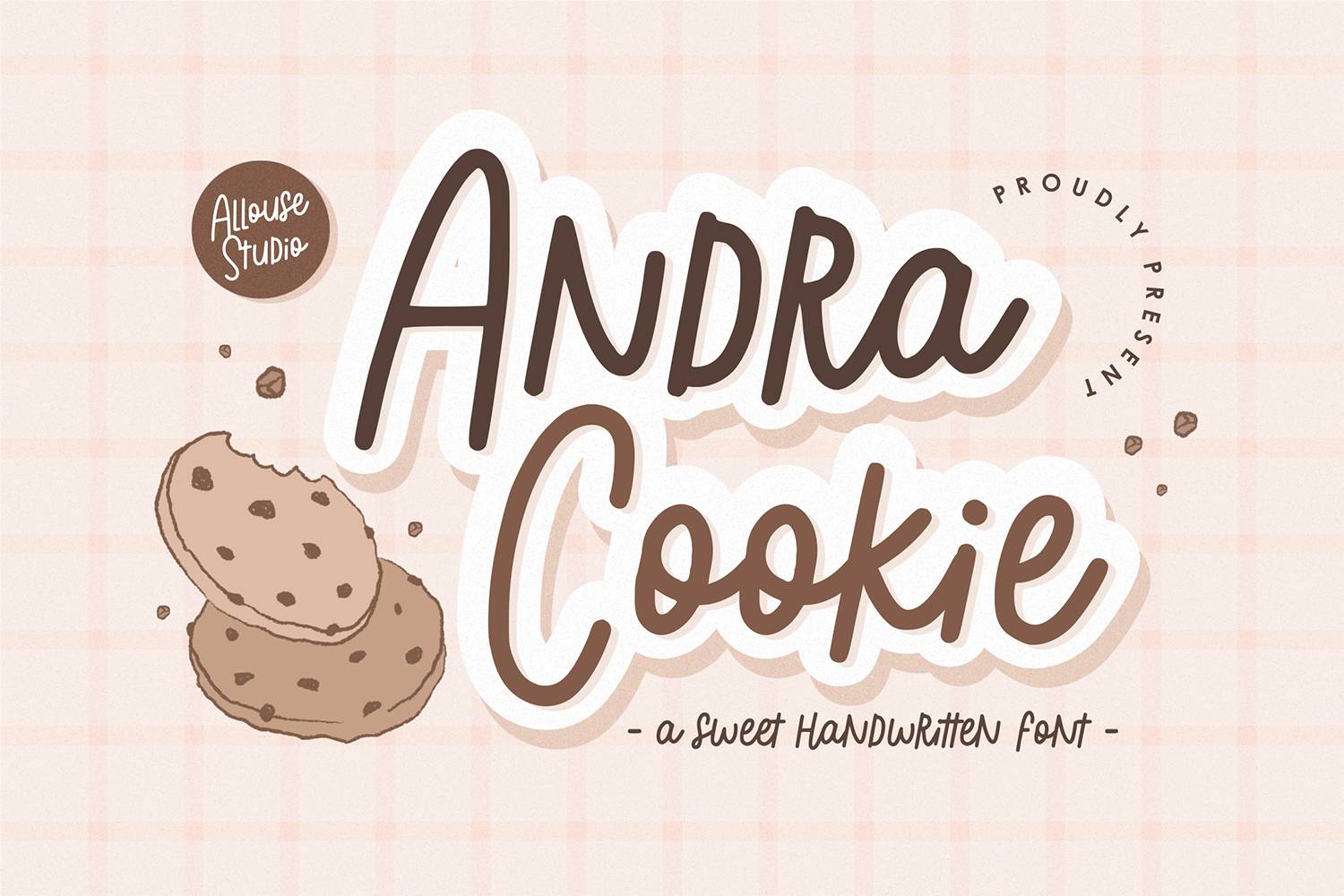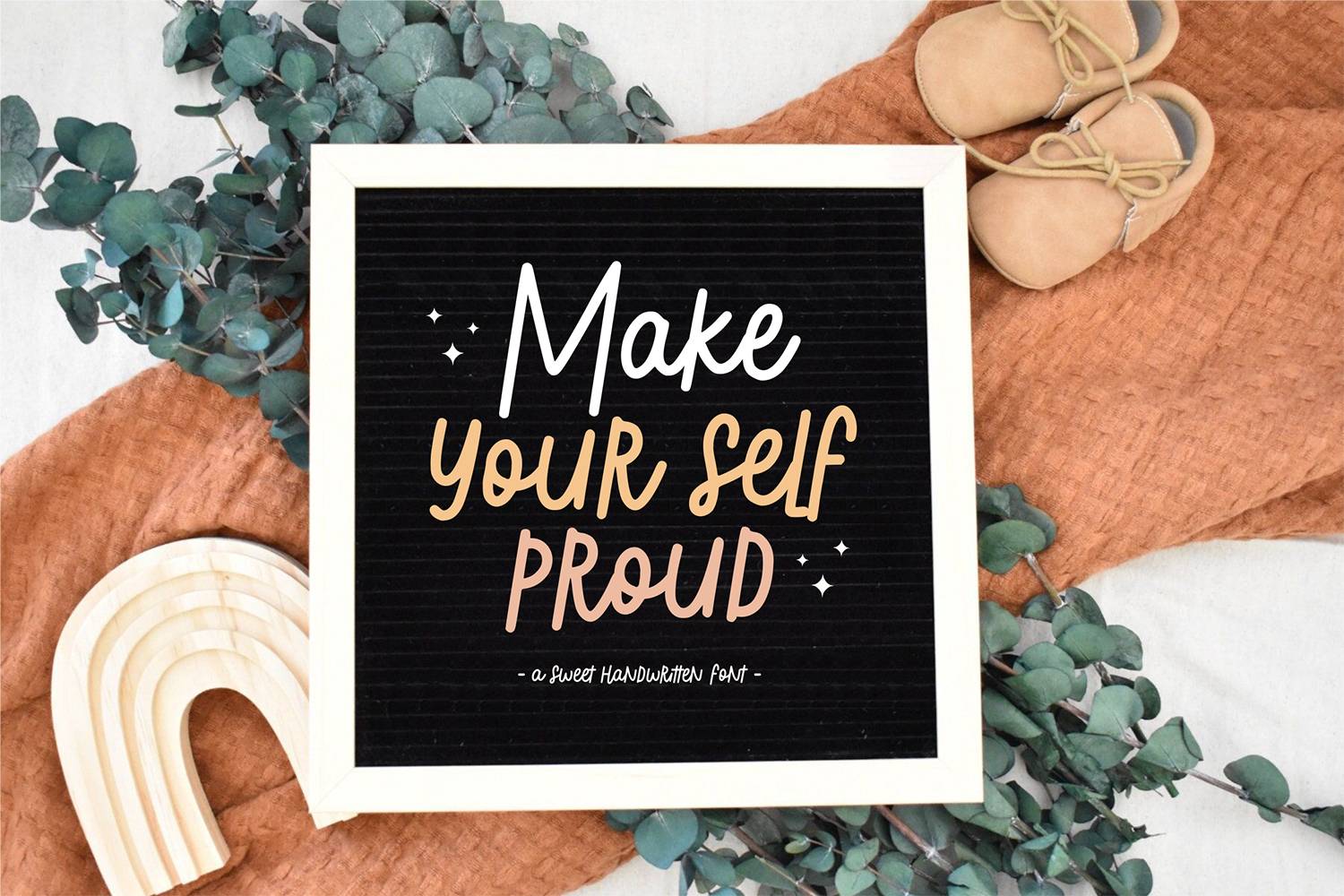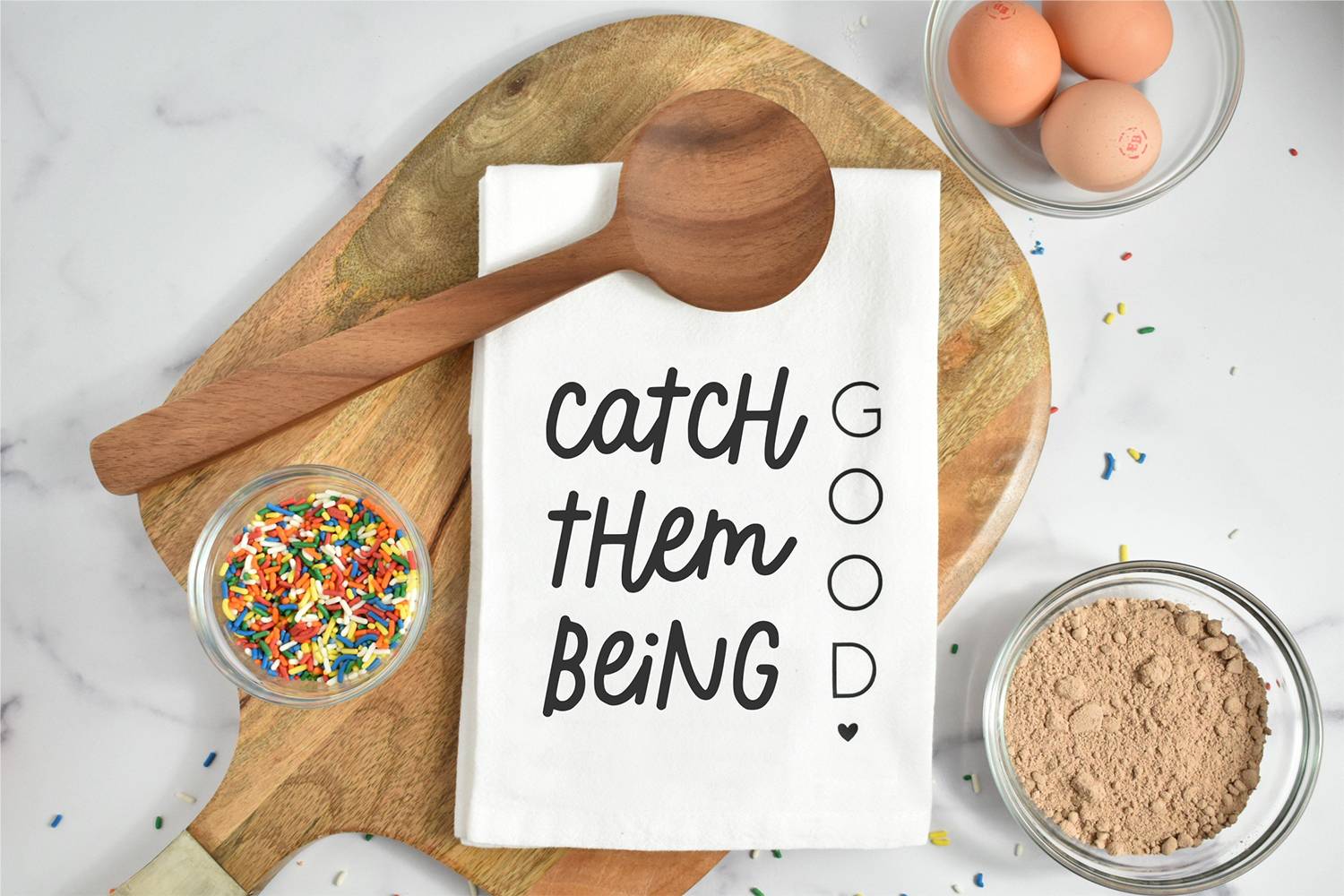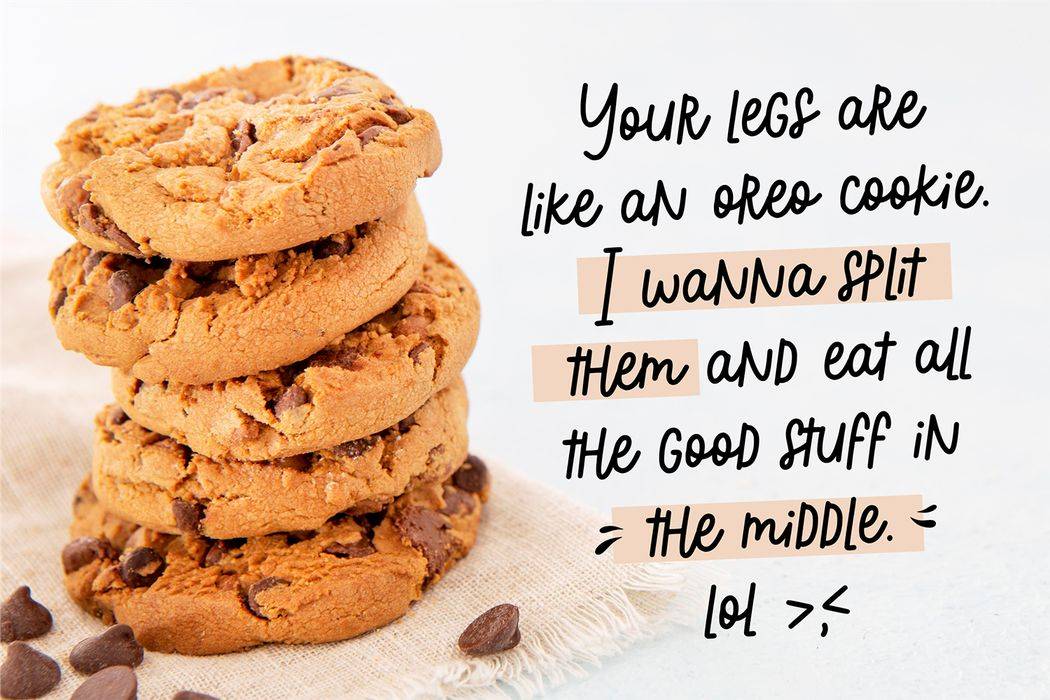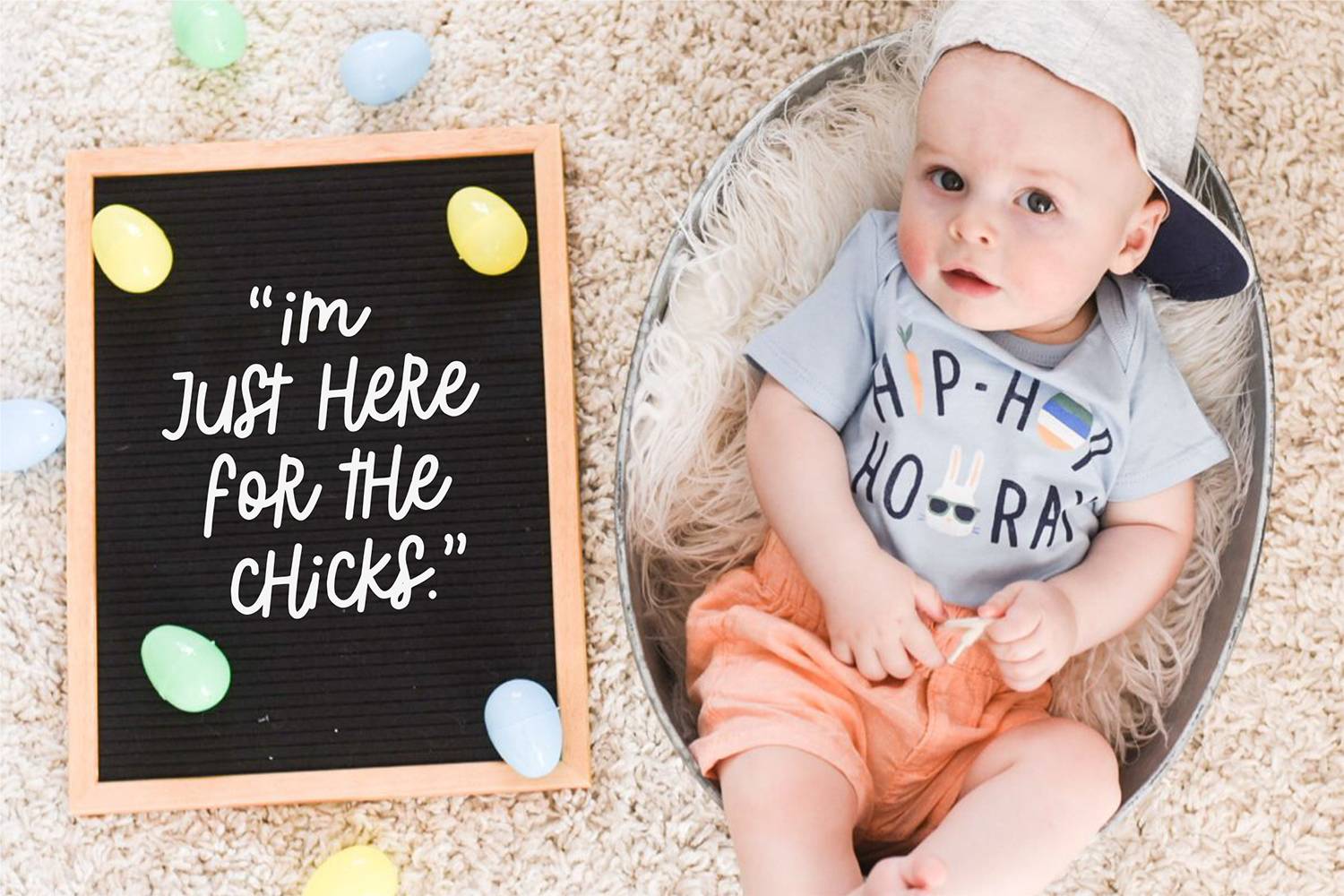
Andra Cookie is a playful and casual handwritten sans serif font featuring a light weight with narrow, slightly condensed letterforms. Its tall x-height and irregular stroke flow create an informal, friendly vibe, perfect for expressive branding, packaging, and creative headlines where a personal touch is desired. This font works well for designs that want to convey warmth and approachability with a youthful and lively personality.
Andra Cookie Font